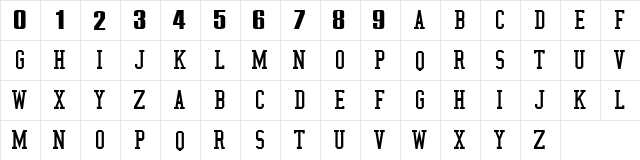
NBA Jazz Regular
Design Context for NBA Jazz Typeface
NBA Jazz offers clean, dependable letterforms without strong stylistic allegiance, making it a practical choice for designers who need flexibility.
Pro Tip: Use NBA Jazz in both headline and body roles to test its range before committing to a single application.